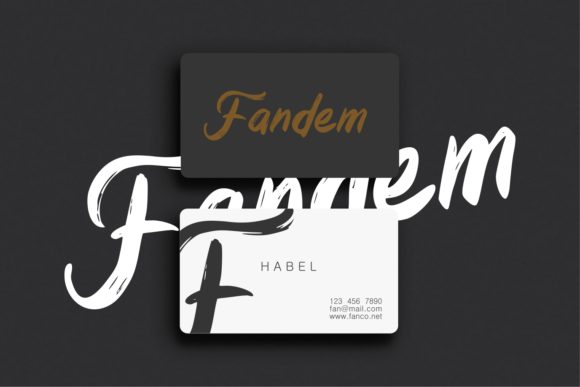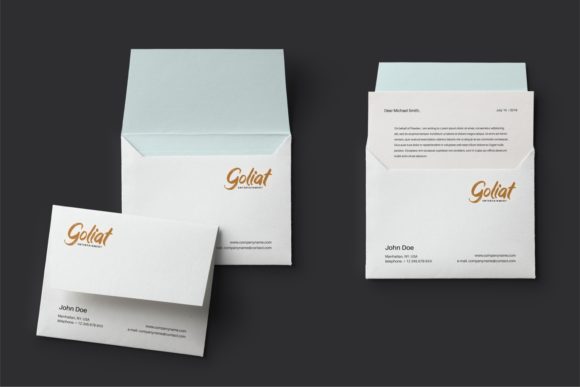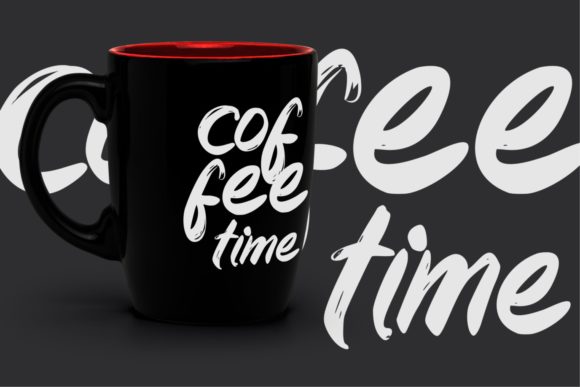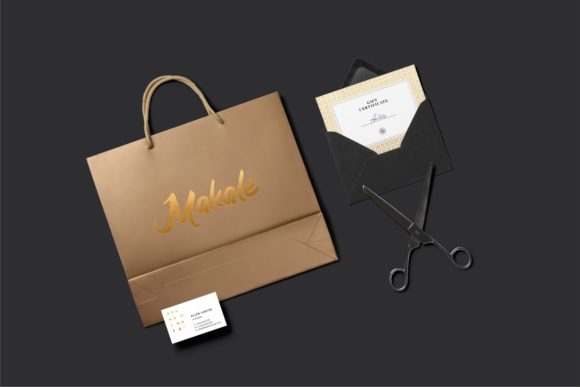
The Dreamland Font: A Bold and Playful Addition to Your Design Arsenal
I’ll never forget the time I was working on a design project for a children’s book, and I just couldn’t seem to find the right font. The client wanted something fun, bold, and eye-catching, but everything I tried seemed either too bland or too over-the-top. That’s when I stumbled upon the Dreamland font, and let me tell you, it was love at first sight! 😍
With its unique charm and incredibly fun, bold handwritten style, Dreamland instantly elevated my design game. I knew right then and there that I had to share this amazing font with fellow designers, crafters, and creative hobbyists. So, let’s dive into what makes Dreamland so special and how you can make the most of it in your projects.
- ✅ Unique and playful design that’s sure to grab attention
- ✅ Highly versatile and adaptable to various design projects
- ✅ Easy to read, even in larger or smaller sizes
- ✅ Extensive OpenType features, glyphs, and stylistic alternates for added creativity
- ⚠️ May not be the best fit for very formal or traditional designs
- ⚠️ Some users might find the font a bit too bold or overwhelming for certain projects
The Story Behind Dreamland: Designer Inspiration
While the true story behind Dreamland’s creation is unknown, it’s easy to imagine that the designer was inspired by the magic of childhood imagination. Perhaps they wanted to create a font that would transport users to a world of wonder and enchantment, where creativity knows no bounds. Whatever the inspiration, Dreamland is undoubtedly a font that will spark your imagination and take your designs to new heights.
Q: What type of projects is Dreamland best suited for?
A: Dreamland is an incredibly versatile font that can be used in a wide range of projects, from children’s books and educational materials to branding, packaging, and more.
Q: Can I combine Dreamland with other fonts in a single design?
A: Absolutely! Dreamland pairs well with a variety of fonts, but be sure to balance bold and playful styles with more neutral or elegant fonts to create visual harmony.